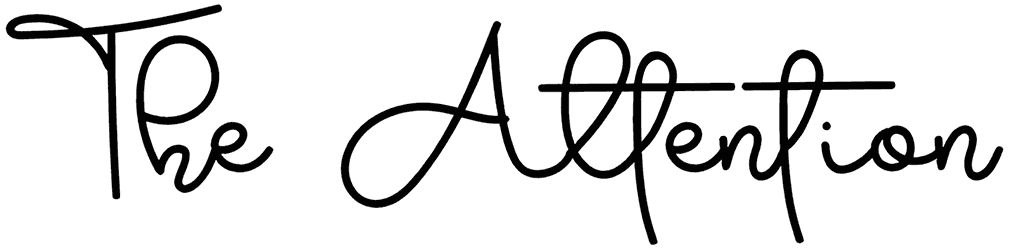
The Attention Font
Who can resist the charm of minimal and twisted words? The Attention is a handwritten font with a monoline face and an aesthetic vibe. You can promote your project with this elegant choice, and The Attention will wonderfully work to attract enough attention. Set this almost A-Z font for your innovative designs from postcards to branding, and be unique.
The Attention is a lovely and delicate script font that exudes elegance and class. This font was particularly crafted for those who need a beautiful and refreshing look to their designs.